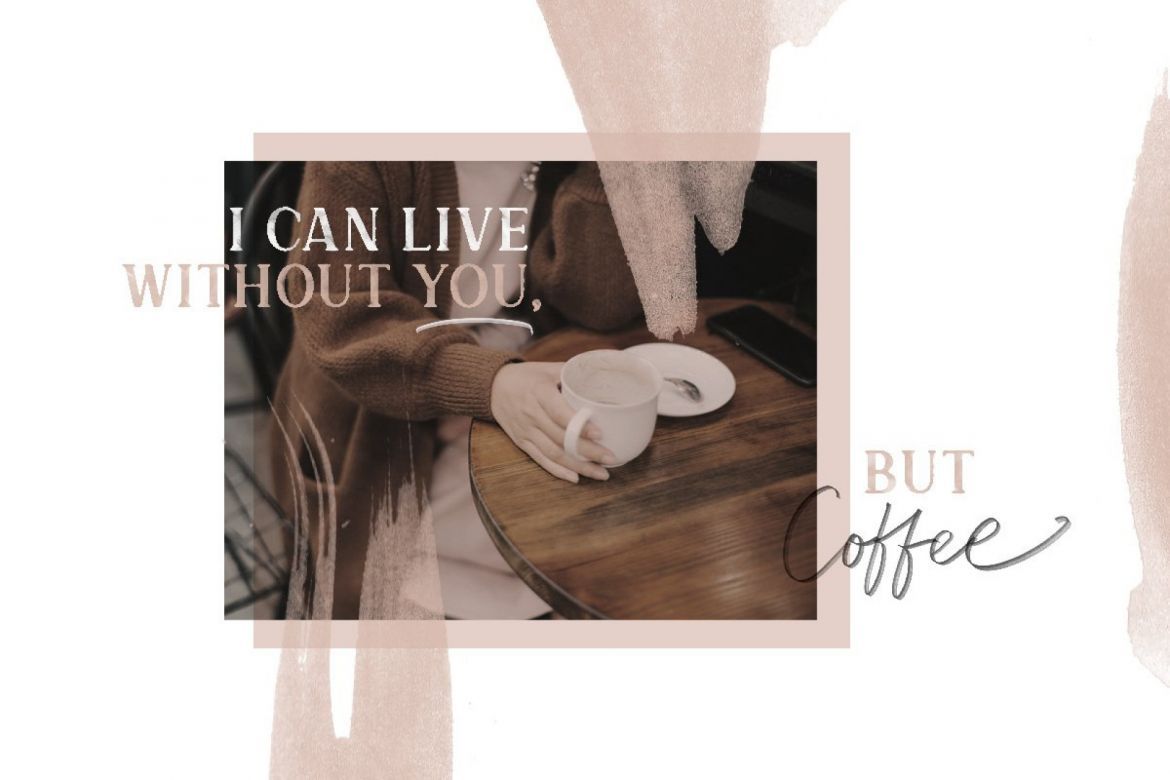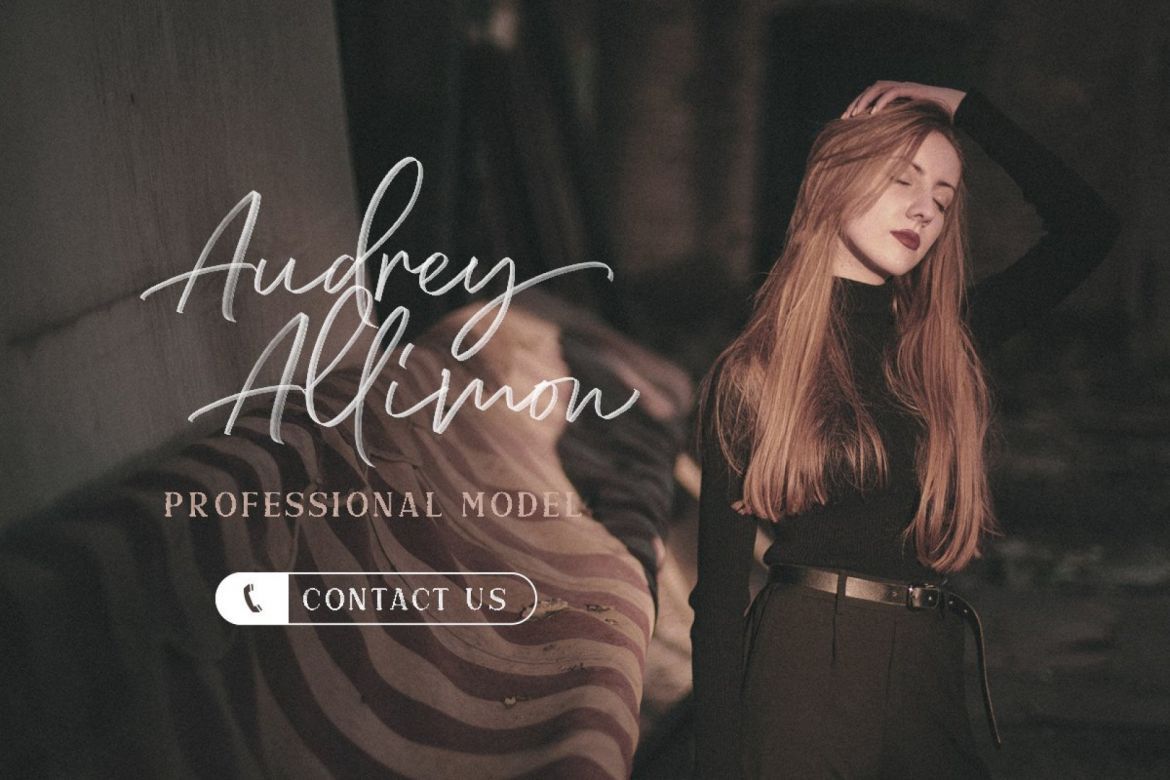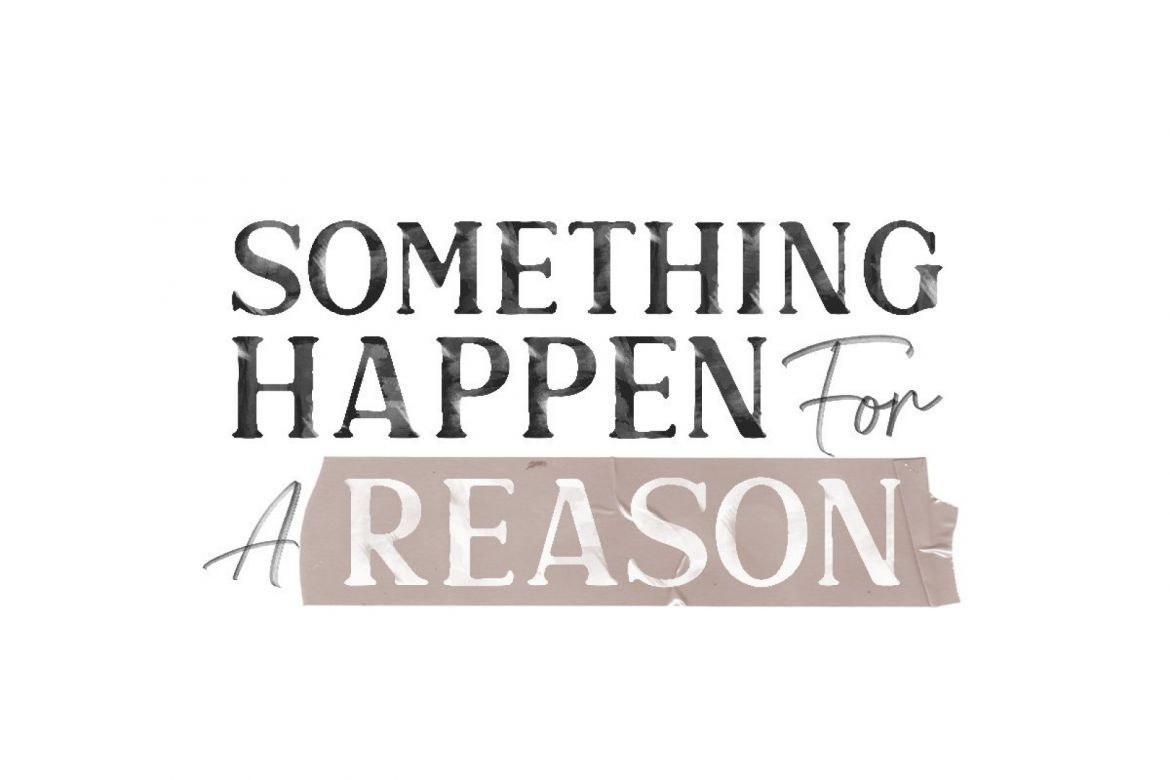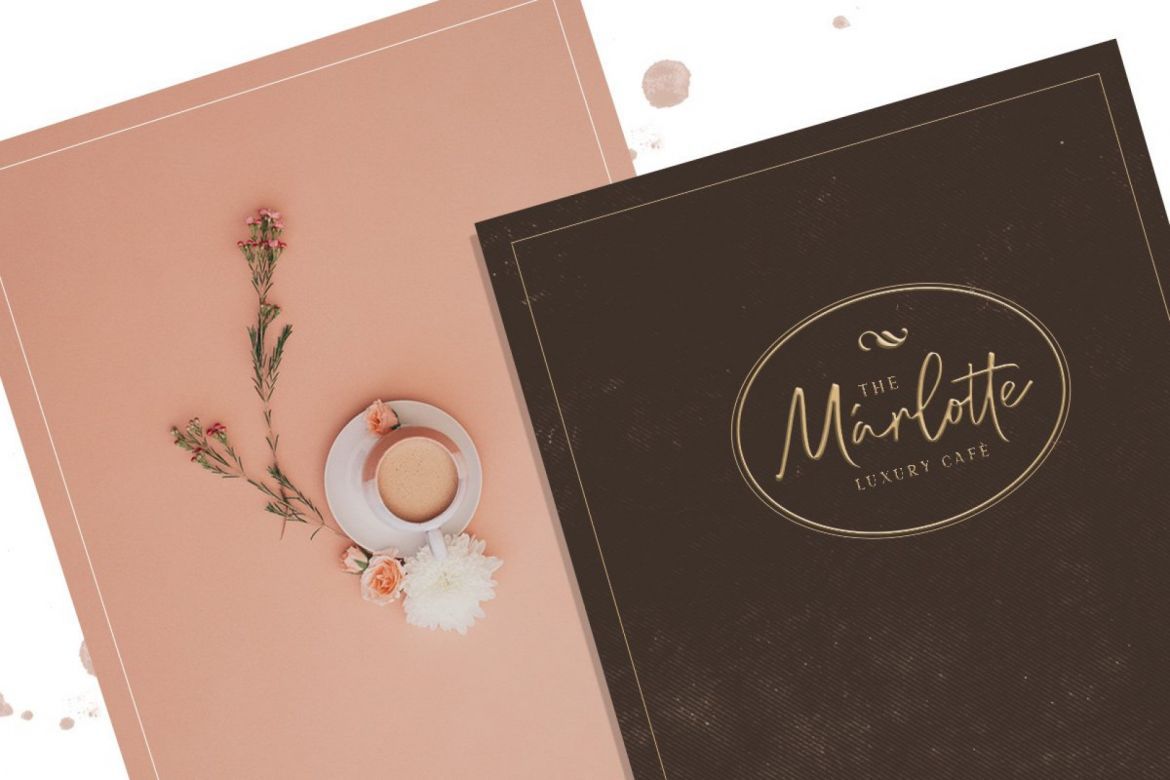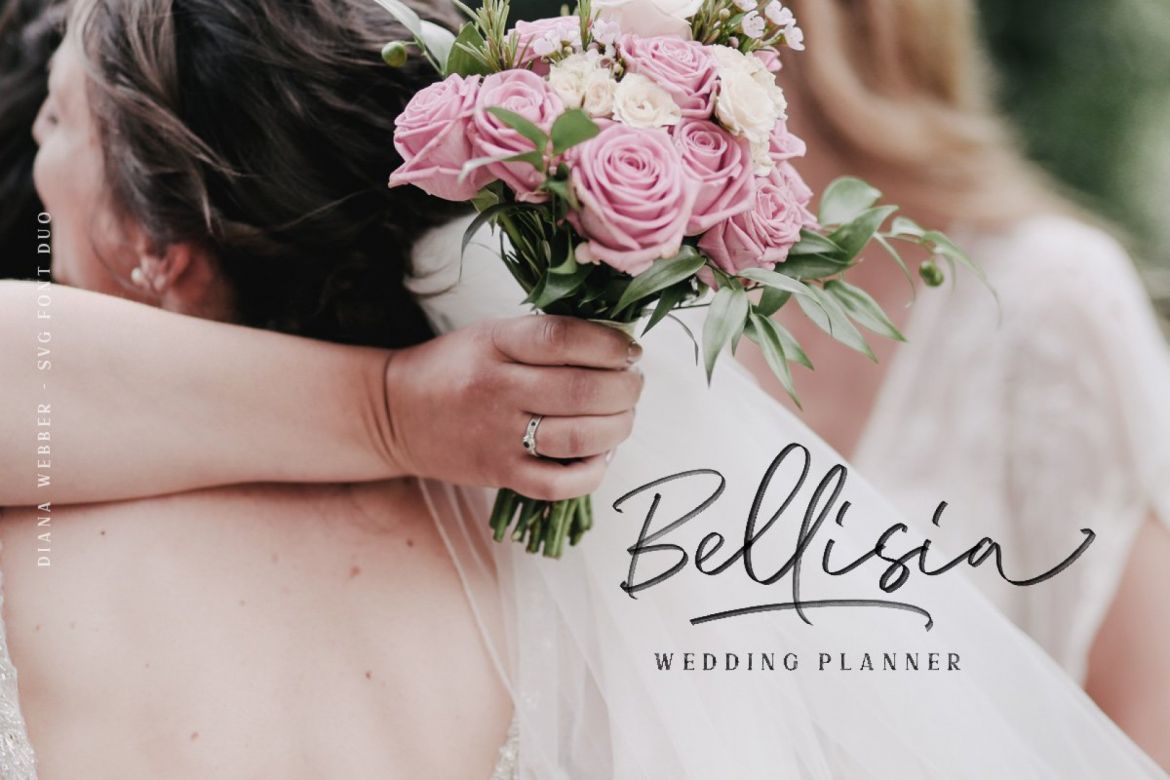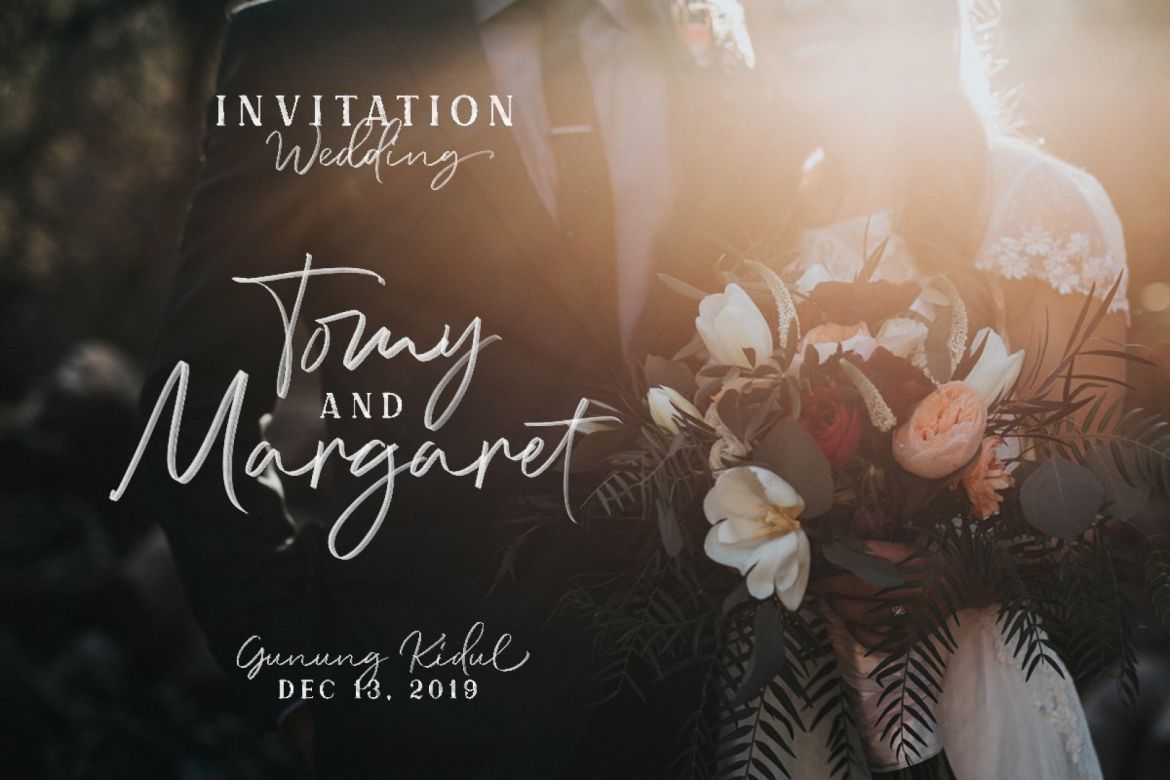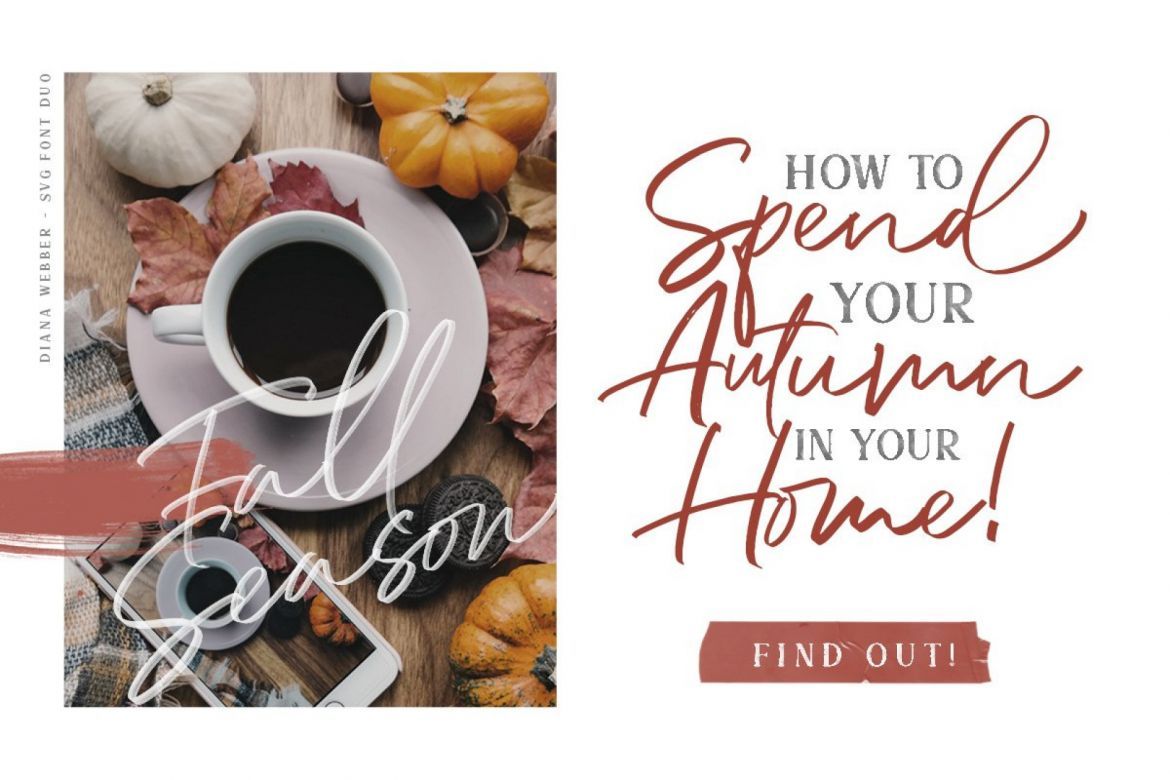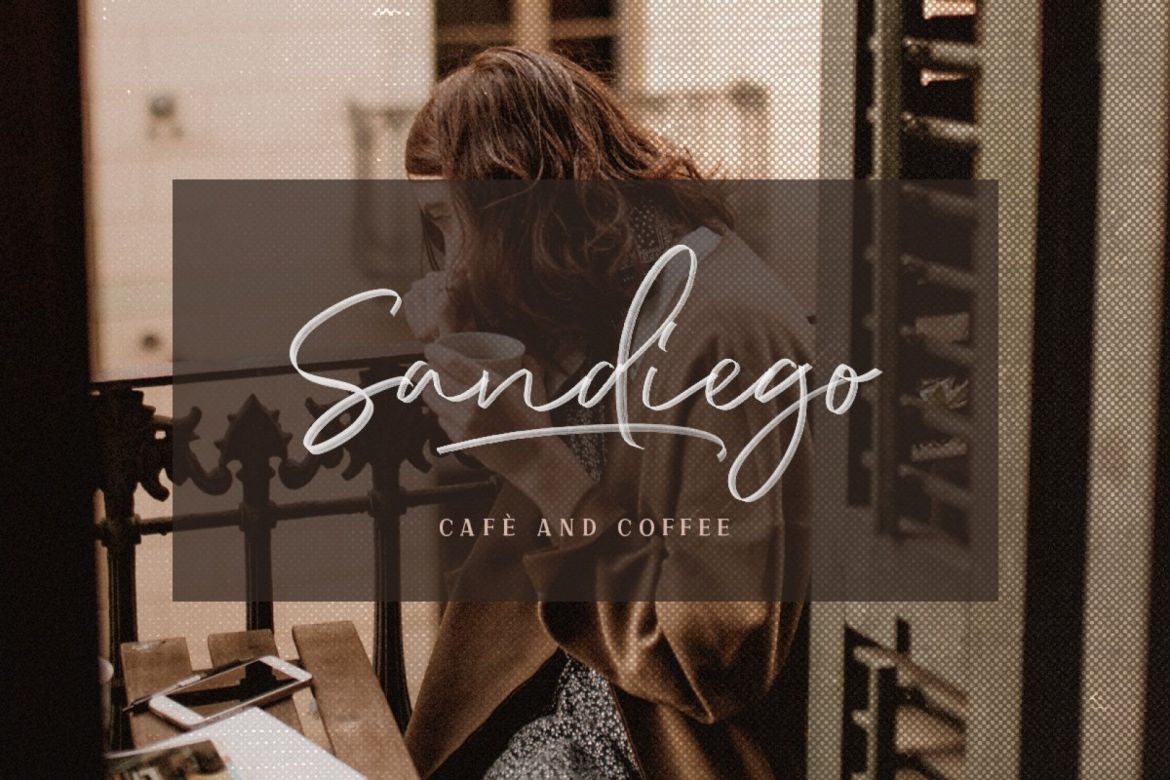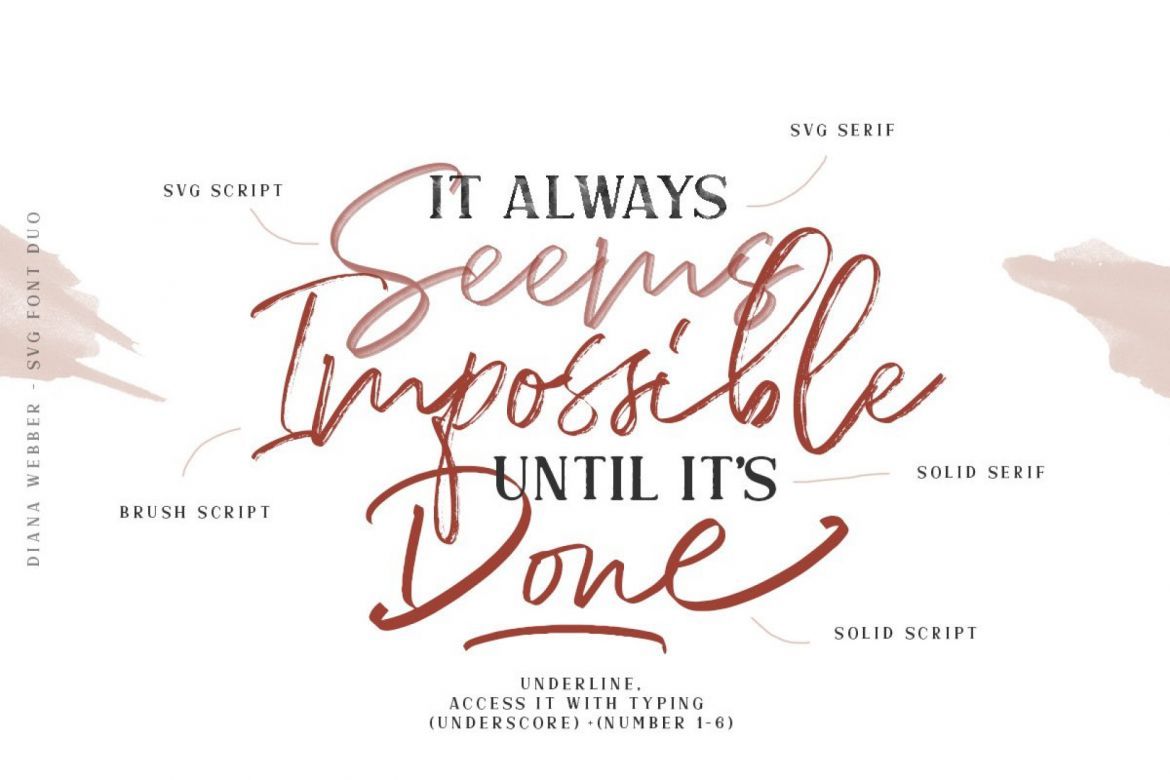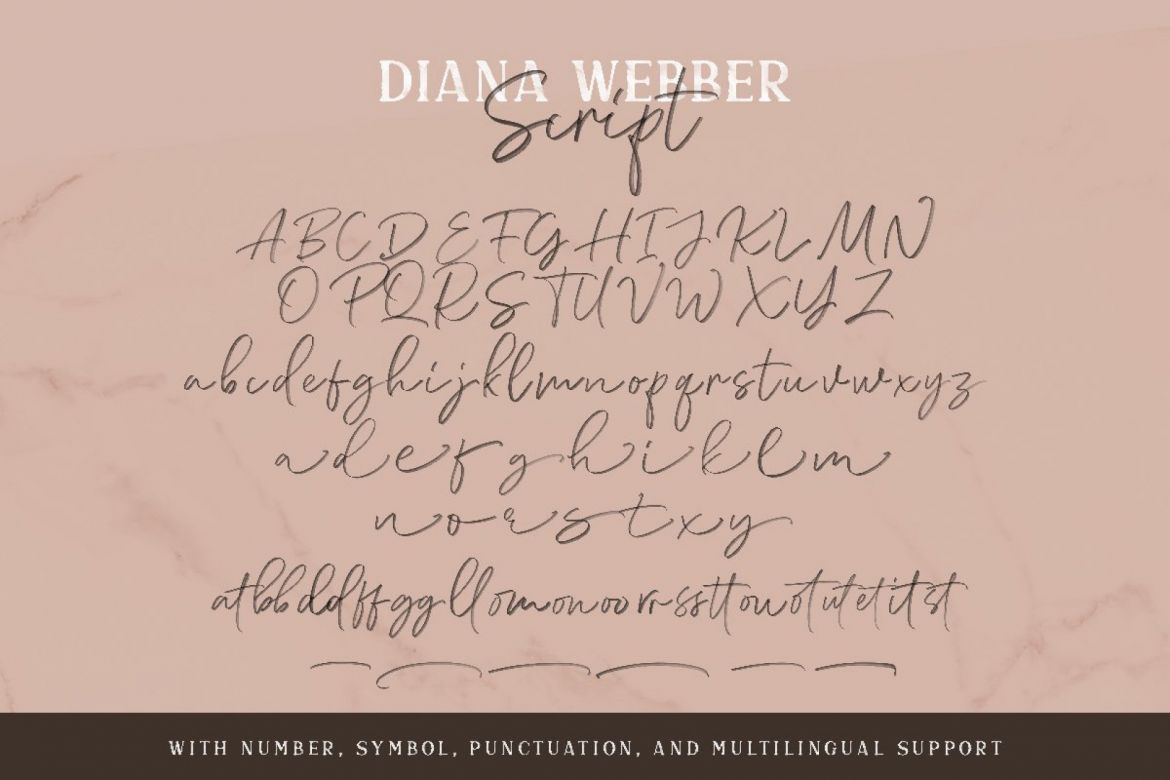
Diana Webber - SVG Font Duo
• also supports multilingual and pua encoded.
• it is suitable for those of you who need face types for headlines, logos, clothing, invitations, branding, packaging, etc.